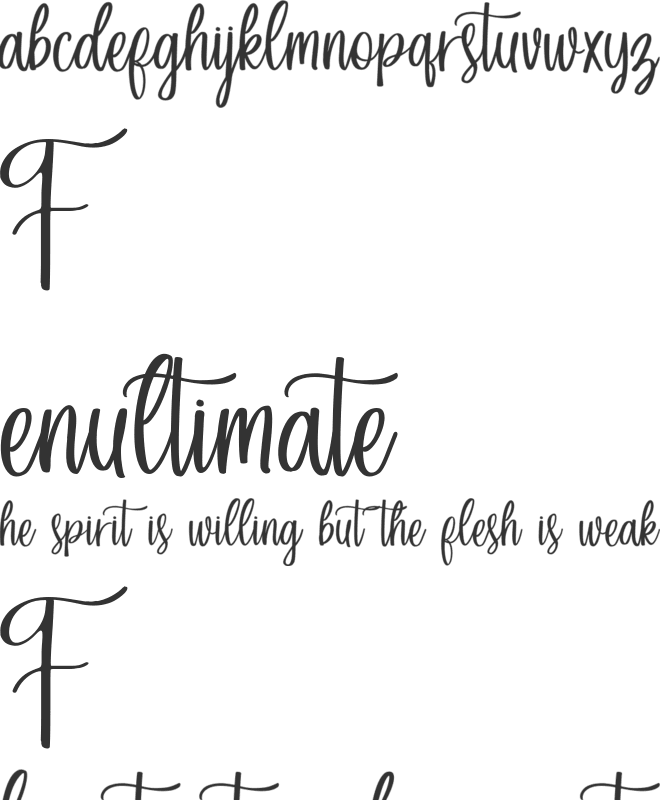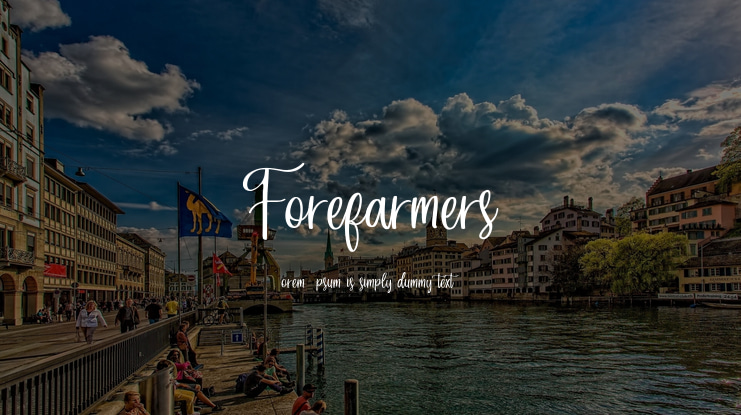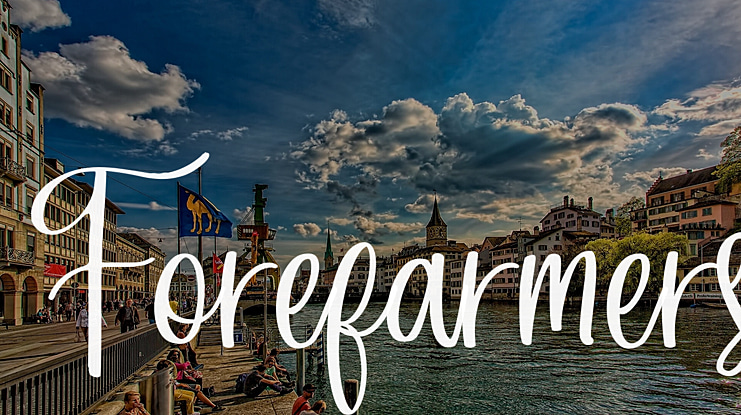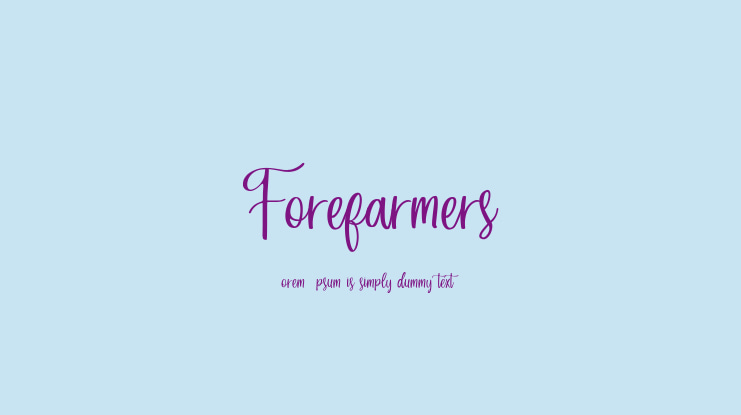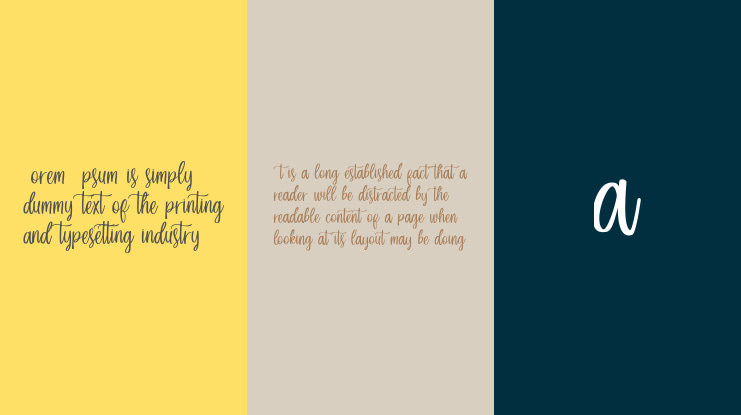
Forefarmers DEMO Font
Forefarmers, A rustic farmhouse script hand lettering font. Inspired by the farmers market signs and those rustic vintage events nowadays. Perfectly fit for vintage wedding concept, logo, branding, farmers market event, flea market, casual handmade stuff, poster quotes, feminine stuff, cosmetic branding, etc.